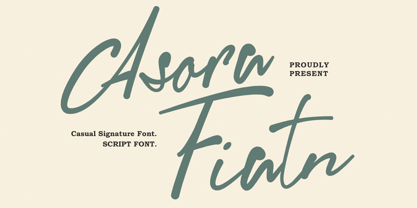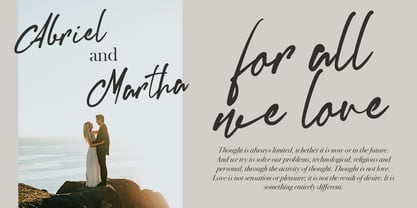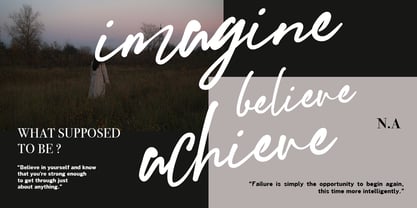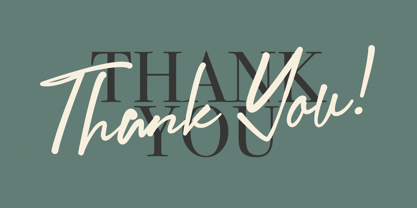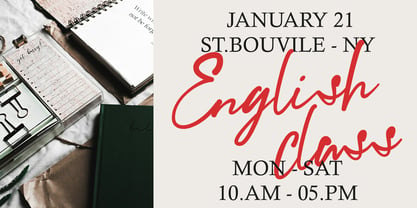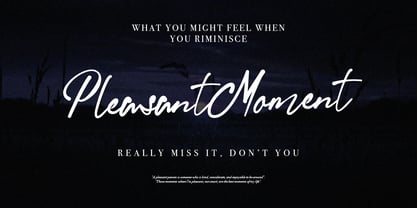
MC Asora Fiatn
by Maulana Creative
The MC Asora Fiatn Font Family was designed by Gilang Maulana and published by Maulana Creative. MC Asora Fiatn contains 1 styles. More about this family
Give your designs an authentic brush handcrafted feel. “Asora Fiatn Casual Signature Script Font” is perfectly suited to signature, stationery, logo, typography quotes, website header, branding and more.